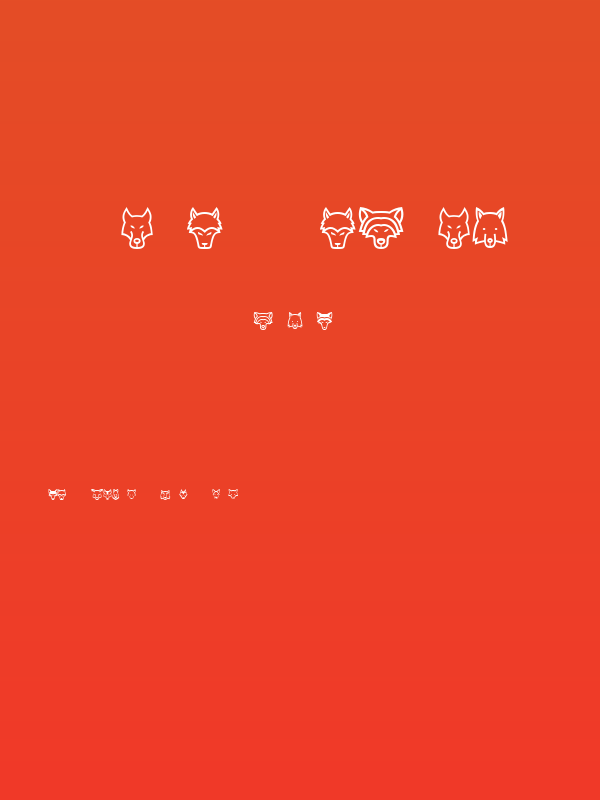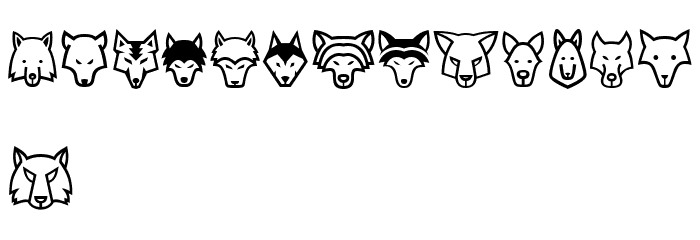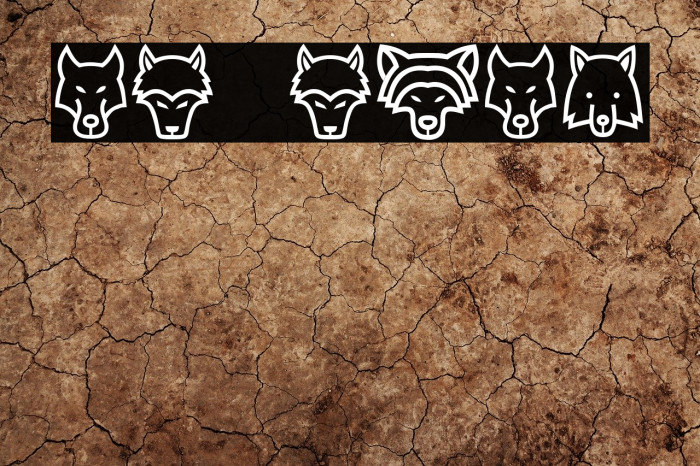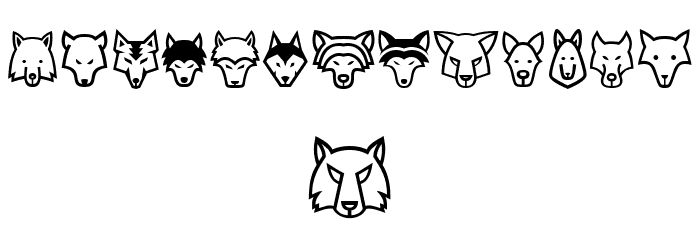
Wolves Regular Font
Wolves Regular Description
A decorative font composed entirely of stylized wolf and animal head illustrations, each character represented by a unique outlined animal face with varying expressions and details.
| Overall Style | Decorative, Playful, Thematic |
| Use Case | Logos, Headlines, Themed graphics, Posters |
| Proposed Projects | Children’s books, animal-themed posters, educational materials, branding for pet or wildlife organizations, playful invitations. |